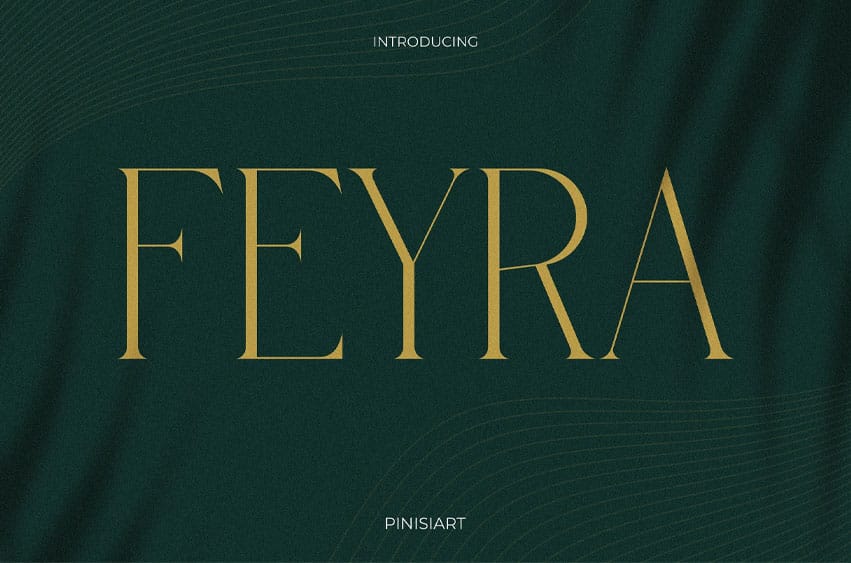
Feyra Font is a refined serif typeface with tall x-height, thin stems, and luxury ligatures. This font embodies elegance, calm authority, and fashion-forward sophistication. With slender proportions and soft optical spacing, Feyra draws inspiration from haute couture magazines, minimal branding, and editorial layouts where every word must feel intentional.
Its gentle contrast and classical flair make it ideal for expressing depth, style, and intelligence. Perfect for designers who want to add timeless sophistication with a modern spirit.
If your project demands a luxurious voice, Feyra delivers with poise. From high-end branding to wedding invitations, from perfume packaging to thoughtful social media quotes, this font elevates every visual with a whisper of grace.
Feyra isn’t loud — it’s strategically silent, making its presence known through elegance and restraint. Whether you’re crafting a jewelry lookbook, luxury hotel brochure, or quiet editorial layout, Feyra guides the viewer with a sense of visual calm and class.
- Poised Elegance Slender strokes and elegant contrast bring a sense of luxury and minimalism.
- Ligature-Rich Letterforms Beautiful ligatures and alternate glyphs for extra typographic sophistication.
- Ideal for Editorial Use: A dream font for magazine layouts, product descriptions, or elegant block quotes.
- Versatile for Luxury Branding: Perfect for fashion brands, boutique logos, and refined product packaging.
- Wedding-Ready Details Soft aesthetics are ideal for invites, vows, menus, and name styling.
Give your designs a voice of elegance. Feyra isn’t just a typeface—it’s a philosophy of design: quiet strength, aesthetic clarity, and timeless refinement. Perfect for brand creators, stylists, and editors looking to shape the mood, Feyra is your go-to serif for all things graceful.